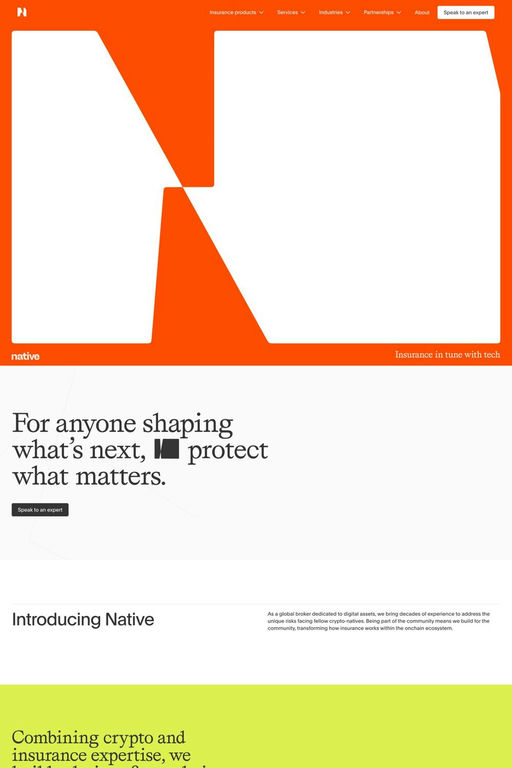
Plain is a sans-serif typeface from Optimo.
Every word could be a logotype. Text composes effortlessly balanced lines. Plain works from footnote to poster sizes. The graphic aesthetic is unique yet universal. Plain investigates the rational simplicity of modernism and brings it to a new level of achievement. Few typefaces achieve this state of visual alchemy, which is epitomized by the classic Helvetica from times in which photo lettering was ubiquitous. Plain is incredibly fluid thanks to a drawing that is neither constrained by a geometrical approach nor structured according to the idiosyncrasy of the stroke.